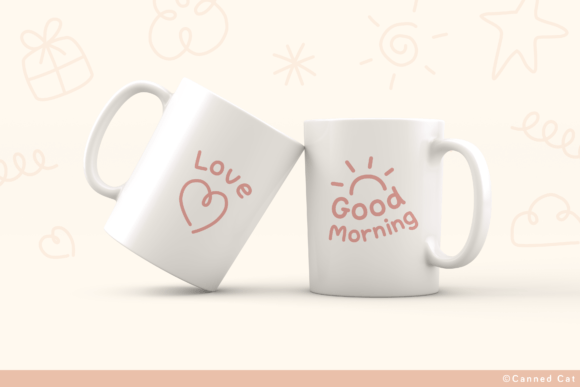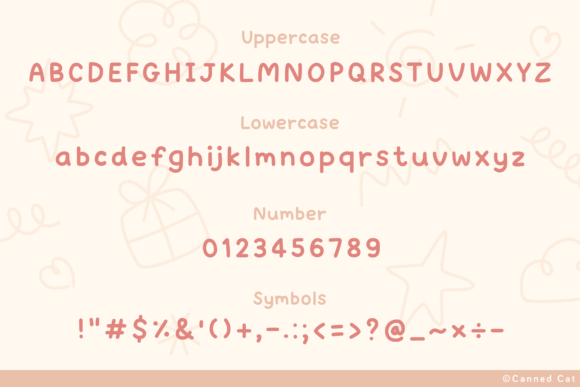
Introduction to Simple Kid Font
Who among us hasn’t had that magical moment when creativity strikes, and a brilliant idea pops into our minds? For designers, it’s often about finding the perfect font to bring a concept to life. That’s exactly what Simple Kid Font does – it’s a sweet, cute handwritten font that’s sure to captivate your audience. With its doodle style, it’s perfect for creating adorable kid products, children’s stationery art, and eye-catching social media posts.
As a valuable design resource, Simple Kid Font offers a high-quality alternative to more generic fonts. Its unique style makes it an ideal choice for creative projects, from crafting social media posts to designing kids’ party invitations. Plus, with a transparent background, it’s easy to customize and integrate into any design.
Key Features of Simple Kid Font
- Unique characteristics include playful, child-friendly letterforms and a bold, modern design
Honest Review: Simple Kid Font
I recently stumbled upon the Simple Kid Font, and I must say, it’s been a game-changer for my creative projects. The font is a high-quality design resource that’s perfect for any project that requires a playful and whimsical touch.
What works well: ✨ The font’s simplicity is its greatest strength. It’s incredibly versatile and can be used for a wide range of creative projects, from children’s books to advertisements. The transparent background also makes it easy to layer with other design elements. The font is also free to download, which is a major bonus.
- Perfect for children’s books and educational materials
- Great for adding a playful touch to advertisements and marketing materials
- Easy to use and customize
However, there are some limitations to the font: ⚠️ The font only comes in a few styles, which can make it feel a bit restrictive. Additionally, the font may not be suitable for more formal or professional projects.
Overall, I’m really impressed with the Simple Kid Font. It’s a great addition to any designer’s toolkit, and I’ll definitely be using it for future projects. If you’re looking for a high-quality, free font for your creative project, I highly recommend giving it a try.
The Simple Kid Font is a high-quality, free design resource perfect for creative projects. It offers a unique and playful style that can add a personal touch to your work.
The Simple Kid Font is perfect for a variety of creative projects, including children’s books, educational materials, and marketing materials for kids’ products. You can also use the font in personal projects, such as invitations and party decorations.